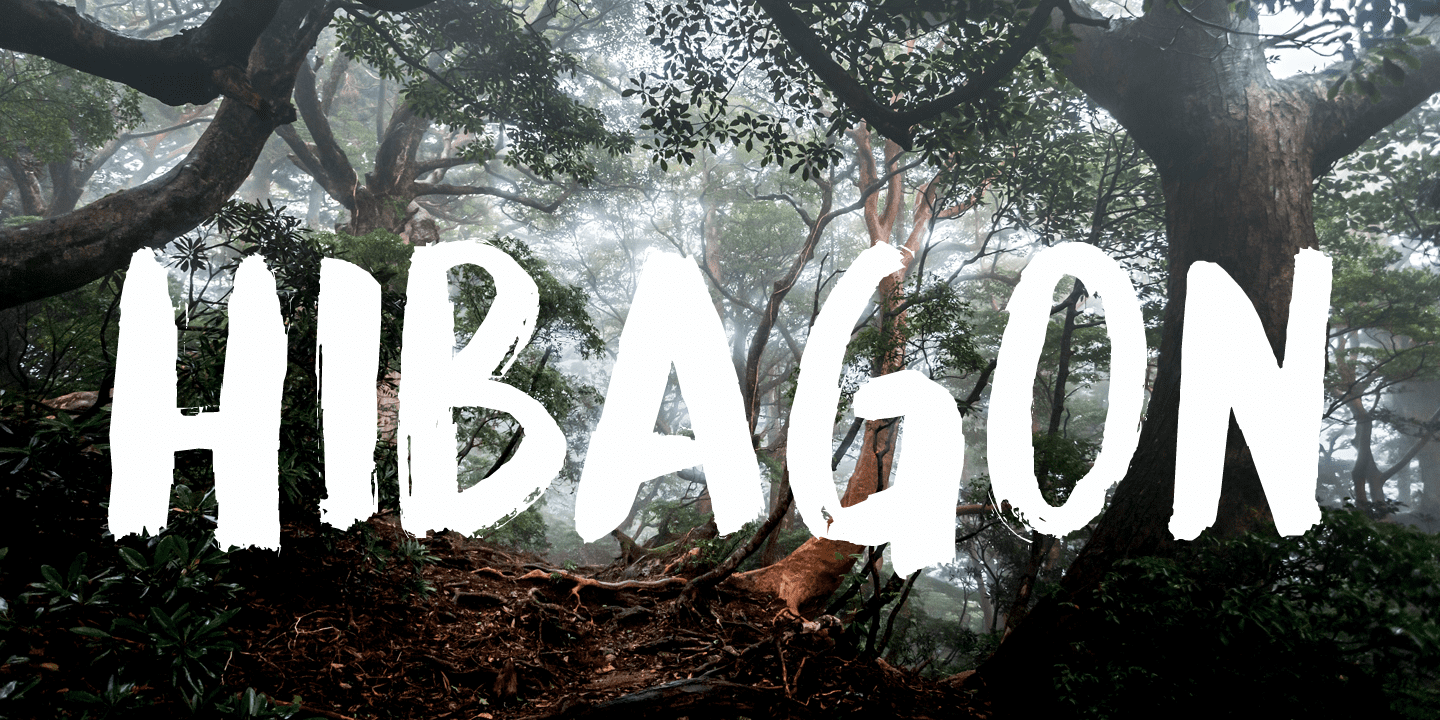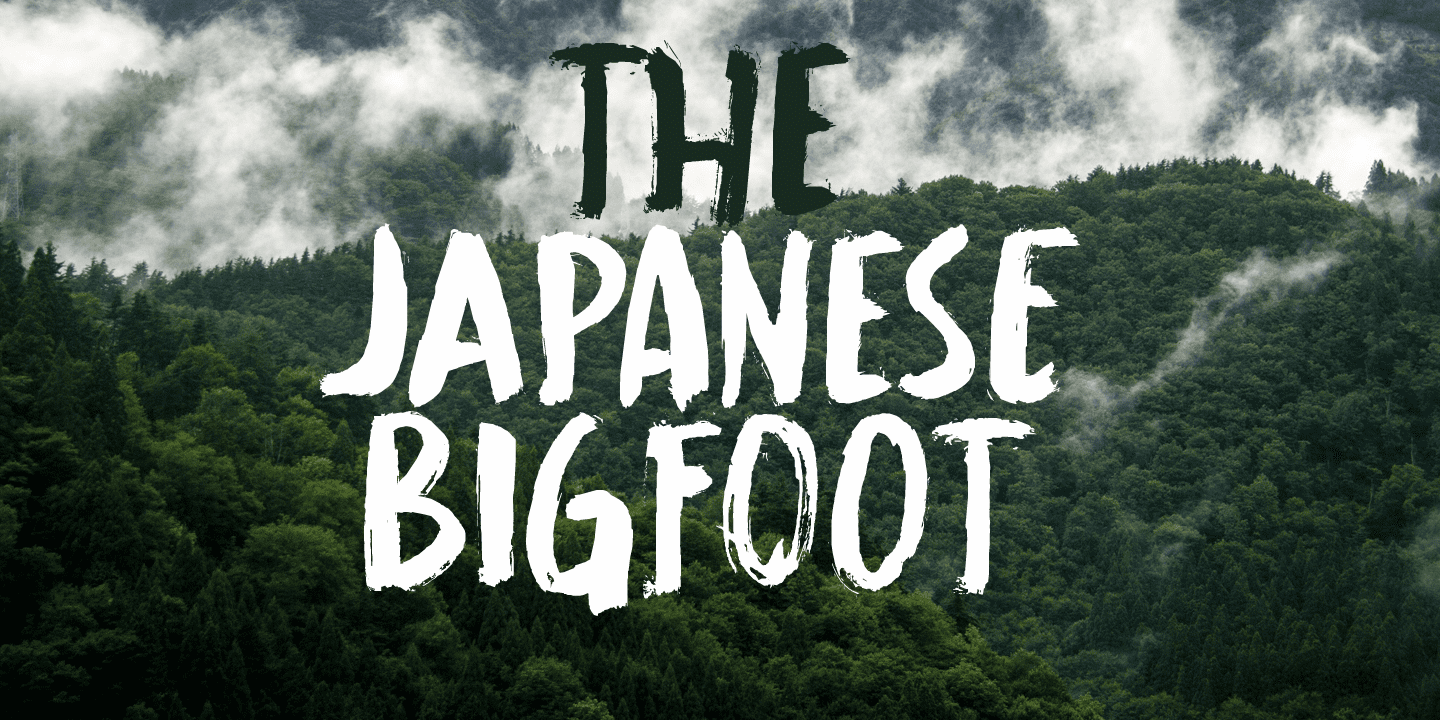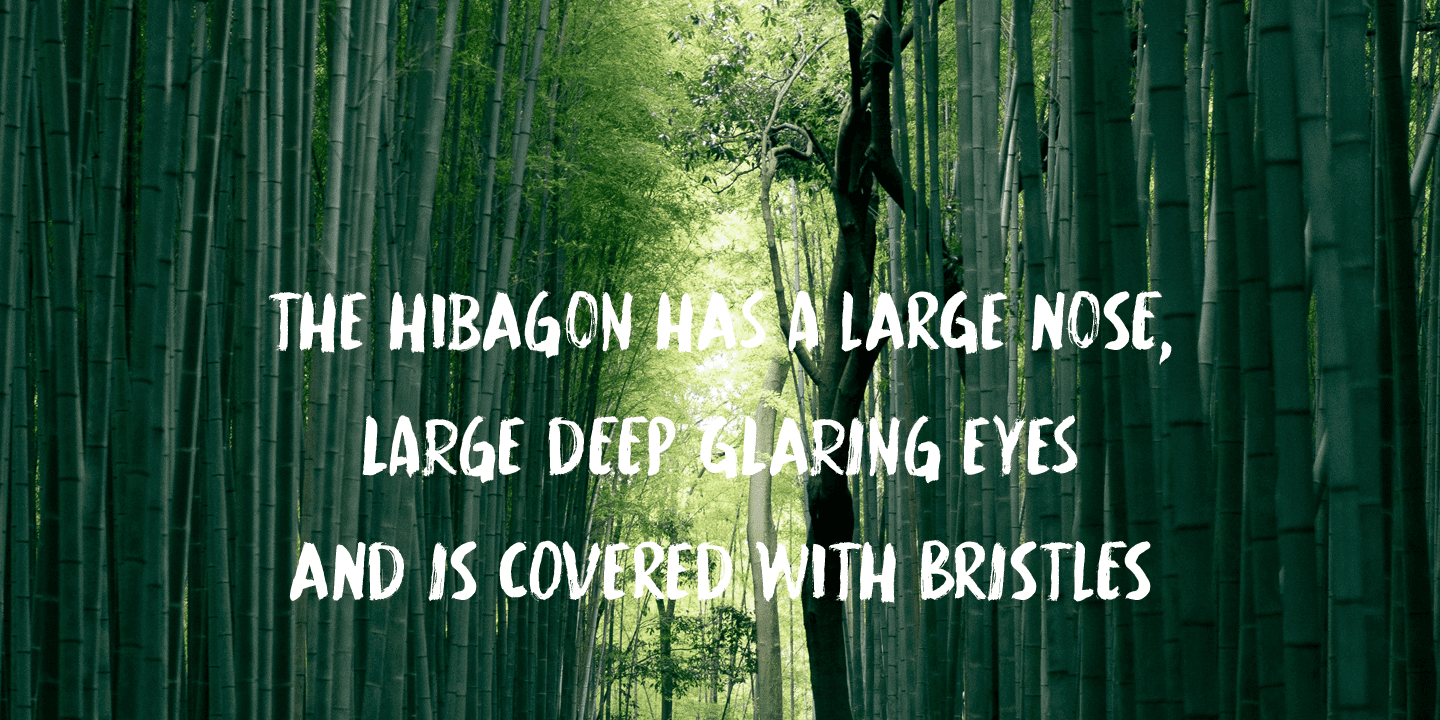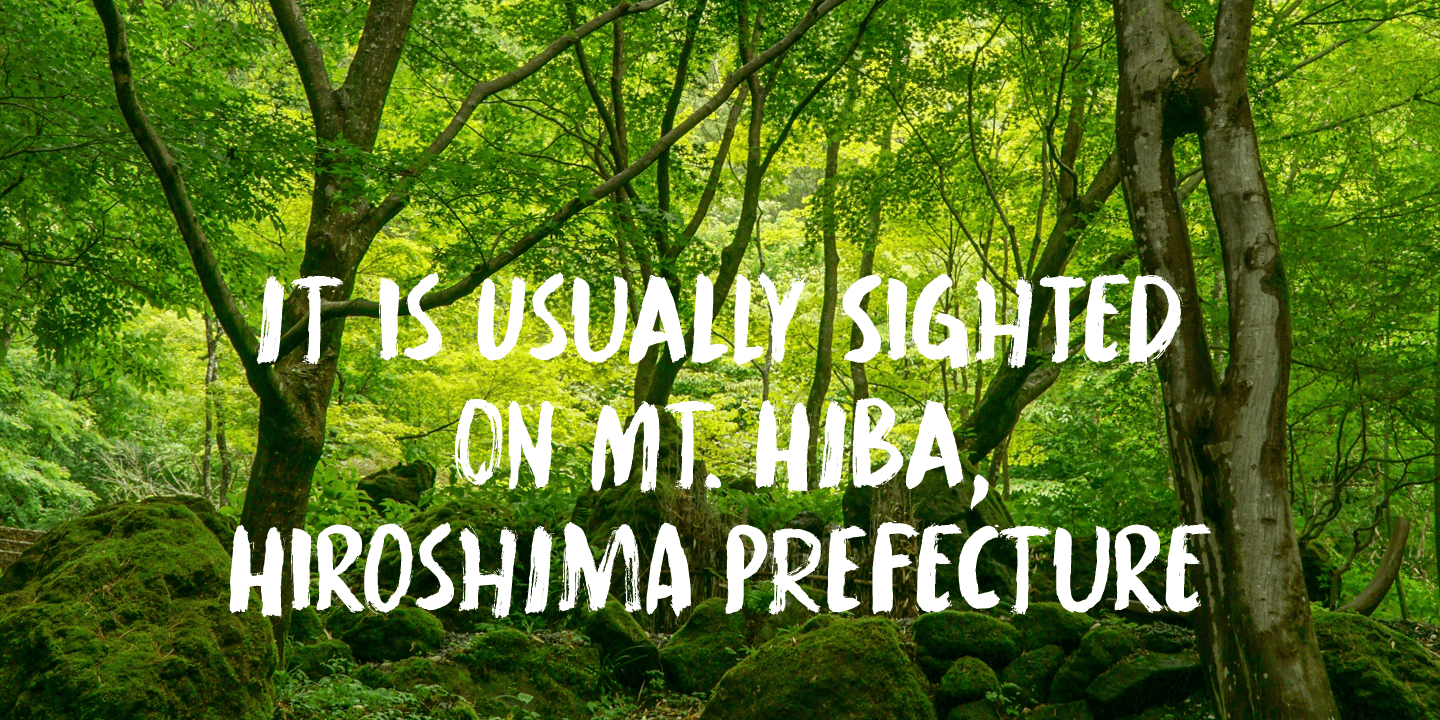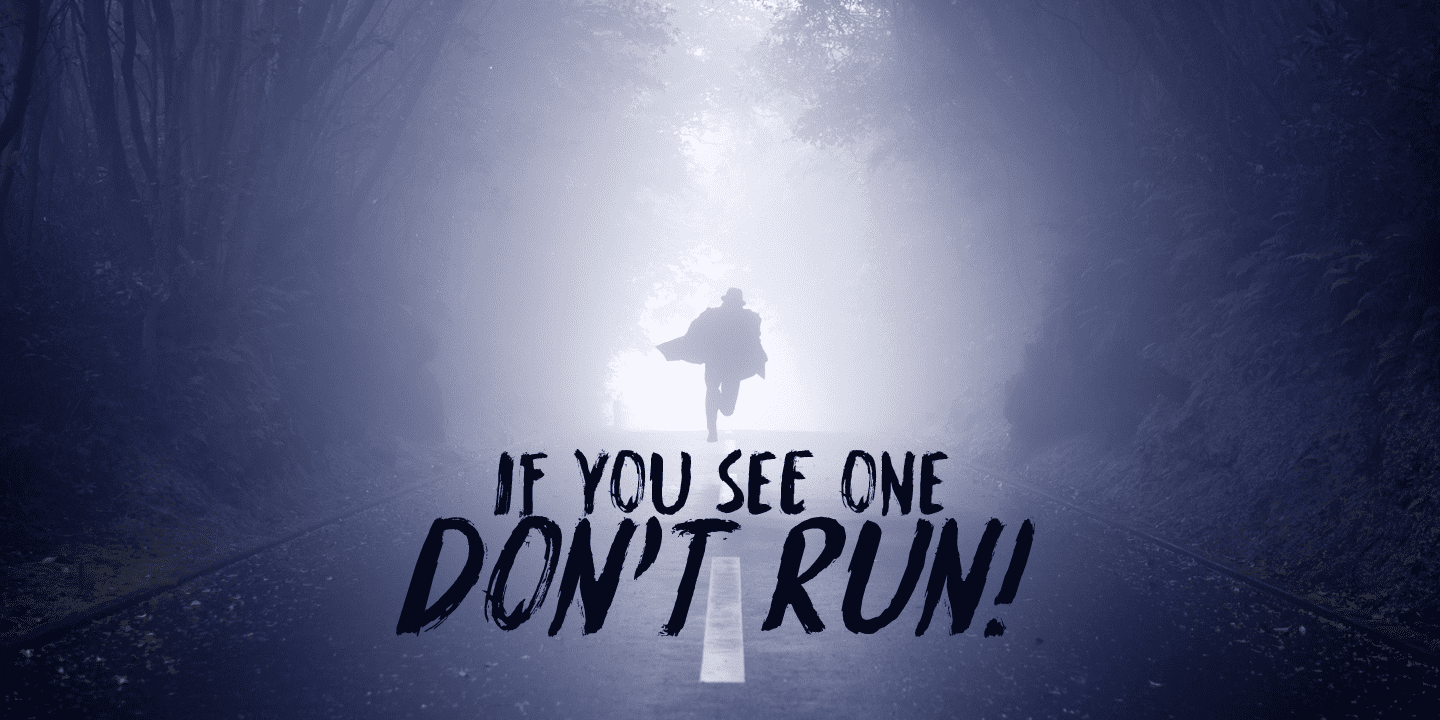
Hibagon font is a nice, handpainted, all caps font with a mythical feel to it. It probably won’t scare you, but it will look good on anything that needs a bit of brushwork, or a bit of roughness.